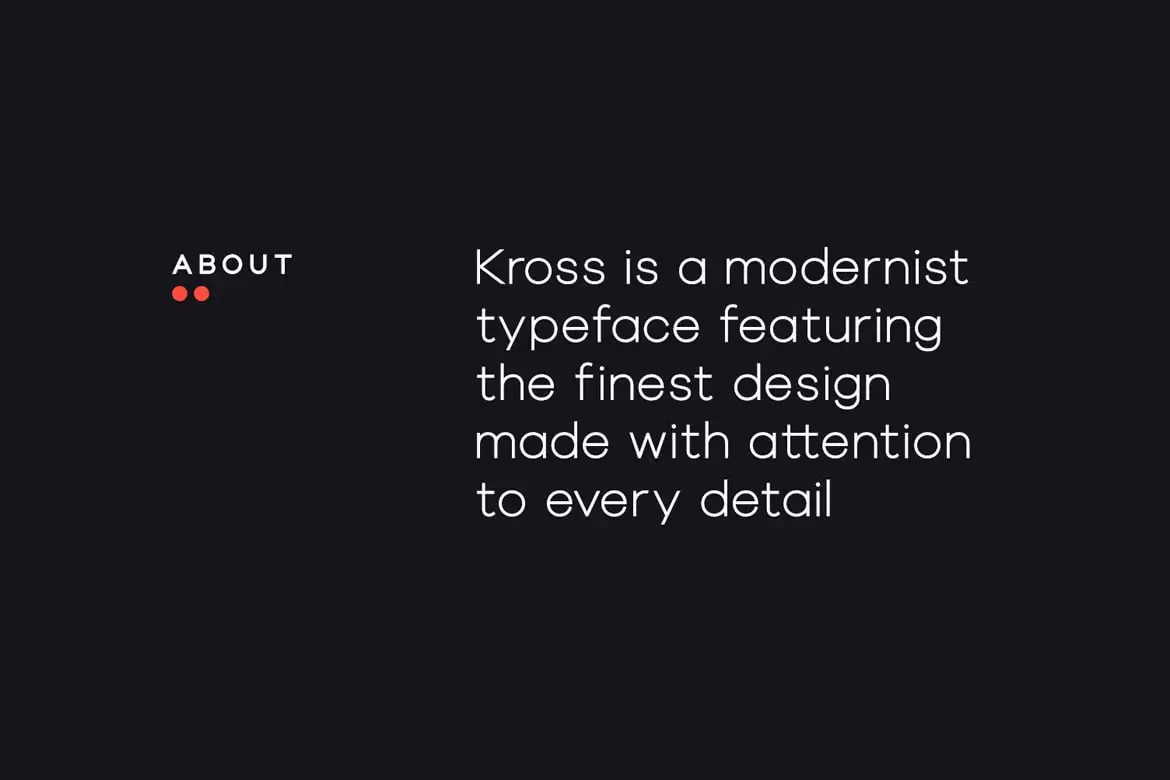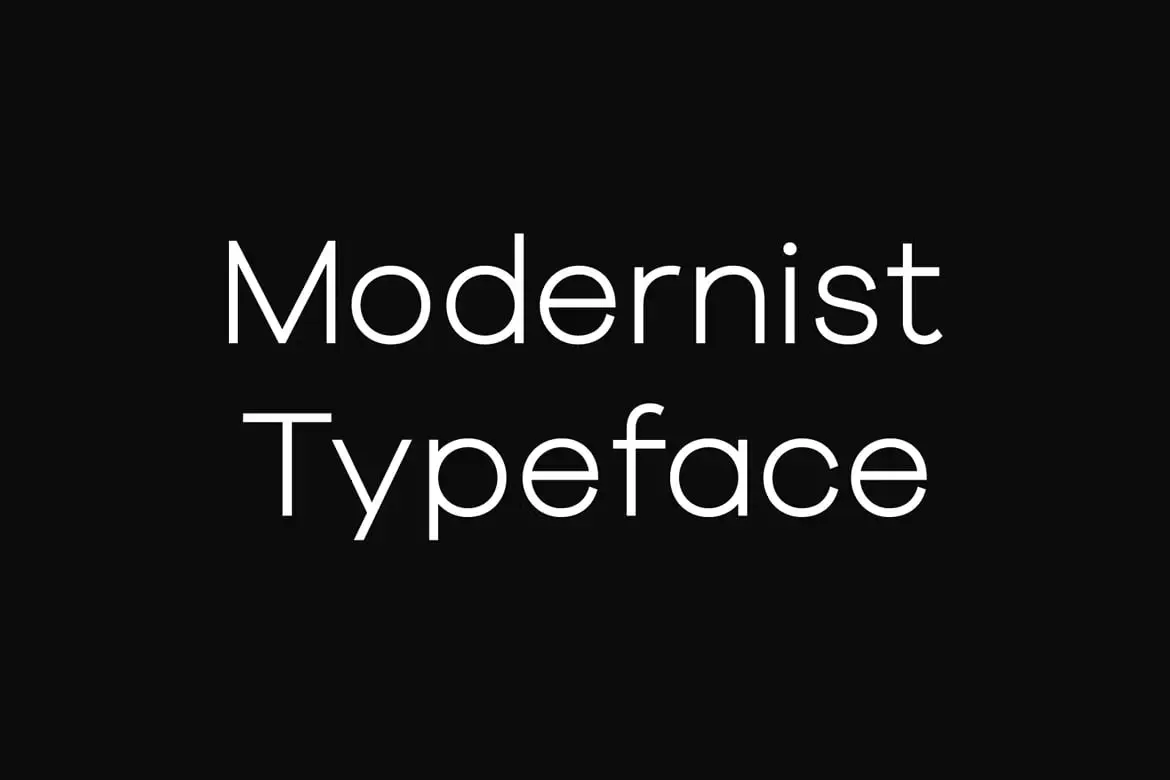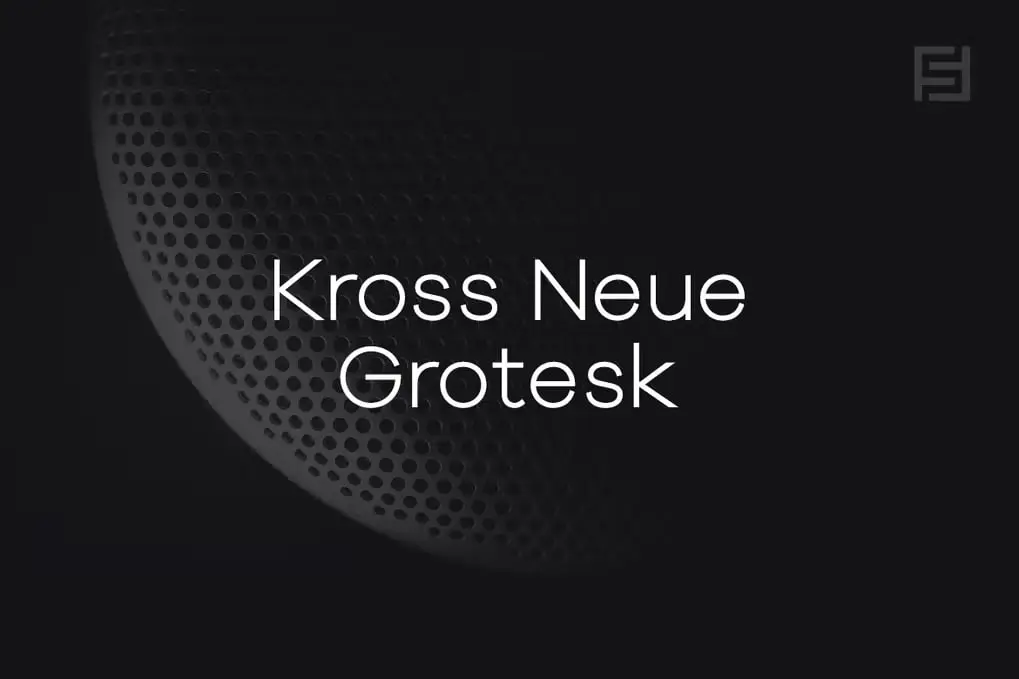
Kross Neue Grotesk Minimal Sans Serif Typeface
Kross Neue Grotesk is a modern sans serif typeface designed with minimalism in mind. This versatile font family features a clean and geometric aesthetic, making it suitable for a wide range of applications, from branding and logos to web and print designs.
• Multiple weights for enhanced design flexibility
• Geometric shapes that ensure readability and elegance
• Uppercase and lowercase letters, numerals, and punctuation included
• Supports a wide range of languages
• Weights: Light, Regular, Bold
• Ideal for clean and modern branding projects
• Perfect for website headers, body text, and UI elements
• Utilize in print materials like business cards and brochures for a professional look